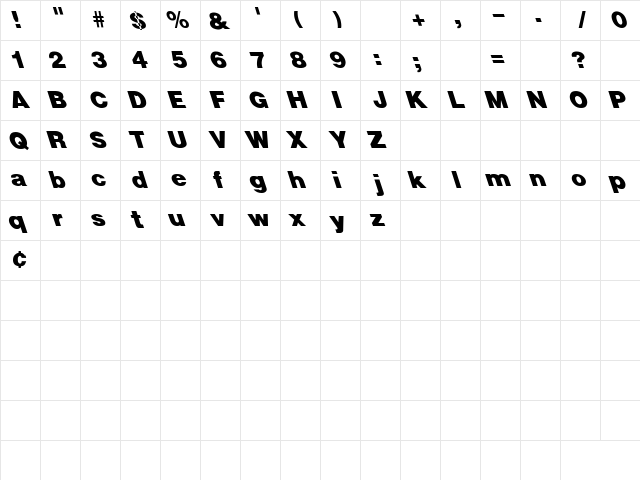
Ultra Black lefty Regular
Design Context for Ultra Black lefty Typeface
Ultra Black lefty offers clean, dependable letterforms without strong stylistic allegiance, making it a practical choice for designers who need flexibility.